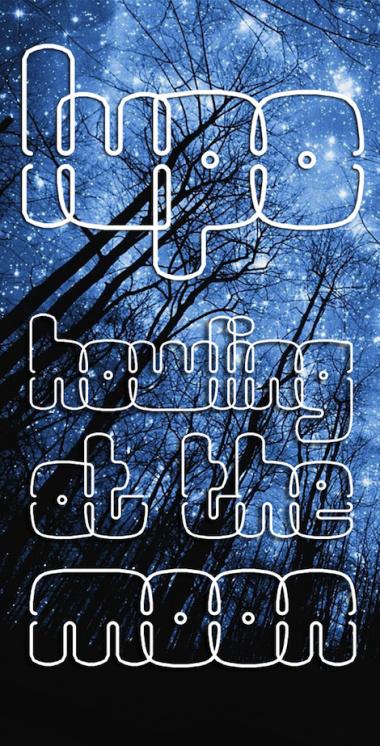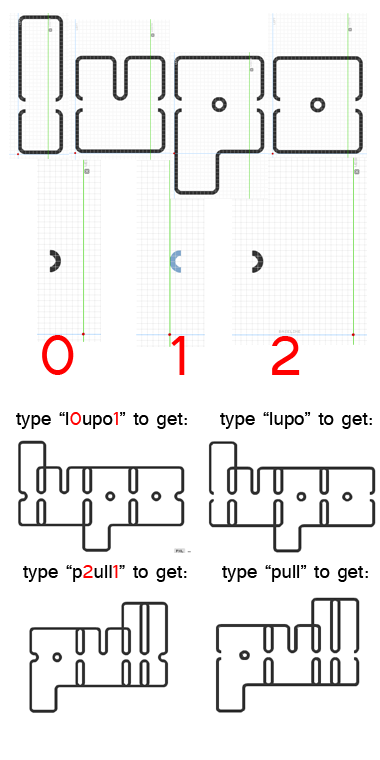
Very very creative. I've never seen a font designed this way before. Ultra unique.
This is so inventive!!! I wish I'd thought of this!
Creative and a great execution! I wonder if judges will drop the script part of "connected script" theme, and turn it into a "connected glyph" :)
Congrats for the entry! I'm with the guys... And I presume they come more "connection surprises" in the next fonts of this ScriptComp...
Full marks for creativity.
Excellent and so inventive. I'm really impressed. 10/10+++
Splendid little ghostly number packed full of figure/ground illusions. The way you’ve played with negative space is inspired. Now I want to see lupo’s words built from spiraling coils of wires that reveal the precise, yet informal letterforms only from a specific vantage point.
i'm with nippa. Ultra unique. 10 FAV. already a winner!
The t doesn't connect like the others. Why doesn't it work like the r? Anyway, great font! 10/10
Ingenious approach!
Winner. Hands-down.
I'm speechless. 10/10/fav/compwinner
Well how could you not, it's so brilliantly executed!
I know right?! This is the most creative entry in this comp, mine seem so boring and mainstream compaired to this amazingly creative work.
The most innovative entry so far...
love this !
@Cmunk: thanks for the suggestion. I have changed t and made some other minor changes. The only letters left without a real connection now are c (right), k (right) and x (left and right). I am hoping to explore upper case and numbers next and maybe some diacriticals...
@will.i.ૐ: Thanks for your words. I love the idea of a wire sculpture that could reveal different things depending on your point of view.
Gets more delightful with each addition.
This is so brillant and the design is great Bravo
Brilliant solution for connected script. My favorite. 10/10
I have been thinking that this font would really benefit from some open type features. One idea is to create three alternates for each glyph: a fully closed one, one that's closed on the left and one that's closed on the right. It would mean hugely increasing the number of glyphs, but give the possibility to create words that are formed by a continues line. I have included an alternate for l and o under the greater-than and less-than keys, so I could create the sample below.
This is, by far, the most creative entry. 10/10 + fave
Maybe this would work better as a three-part font, like CMunk's Dry Heat. You could create a separate font for initial letters, and another for finals.
Suggestion for closing gaps. Maybe you could put some closing contours instead of some punctuation, here, I used numbers 0,1,2 to get this effect:
Great idea! (something like my floating connectors in "zage eYe/FS", I'm right?)
Thanks Architaraz, an excellent idea, I'll include them in the font.
Congratulations! I thought this entry was really ingenious, I almost KNEW it would win from the start! Again, Congrats on a great font!
I find the little gaps at the beginning and end of words one of the considerable charms of this font. The breaks smartly echo the negative spaces of your circular counters while accentuating the “double helical” nature of word construction. As above, so below. But moreso, my mind swims while deciding what is on the inside and what is on the outside – all without ever loosing sight of what the word says. This is an impressive and thoroughly delightful illusion.
it is the best 10/10 cuz i never thought of this...
I'm in for the number alt thingy!
Man, reminds me of the font loop de loop, except a bit bolder, aand are those accents I see?
Still in love with this one.
Love it!